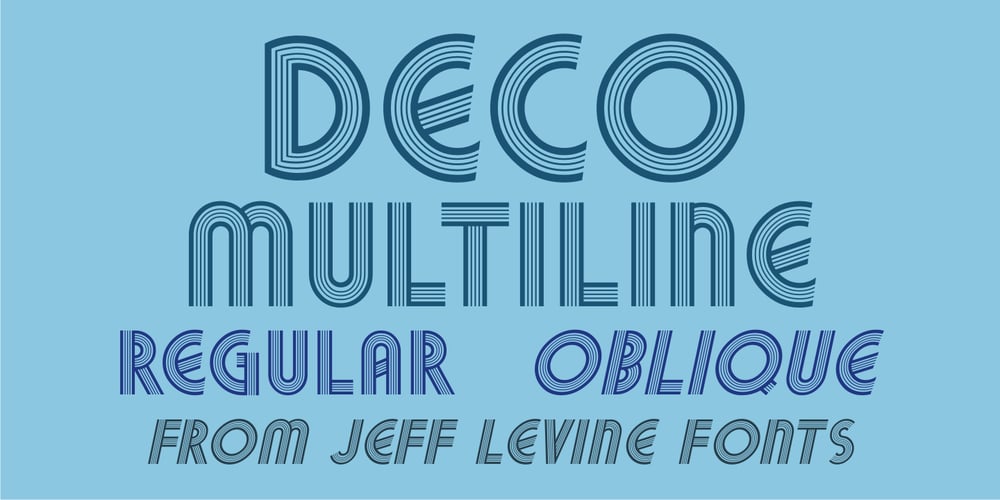
Deco Multiline JNL
Deco Multiline JNL font
Deco Multiline JNL Font Family was designed by Jeff Levine and published by Jeff Levine. Deco Multiline JNL contains 2 styles and family package options. The 1934 Dick Powell-Ruby Keeler-Joan Blondell movie musical “Dames” gave us the classic song “I Only Have Eyes for You”, but the sheet music for the song had the movie title hand lettered in a multi-line Art Deco sans serif design that just begged to be turned into a type font. From these few letters now comes Deco Multiline JNL, which is available in both regular and oblique versions.